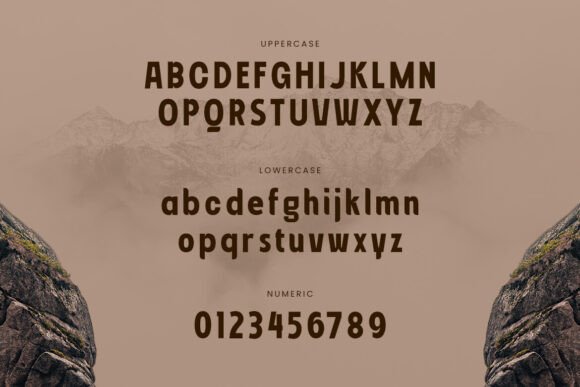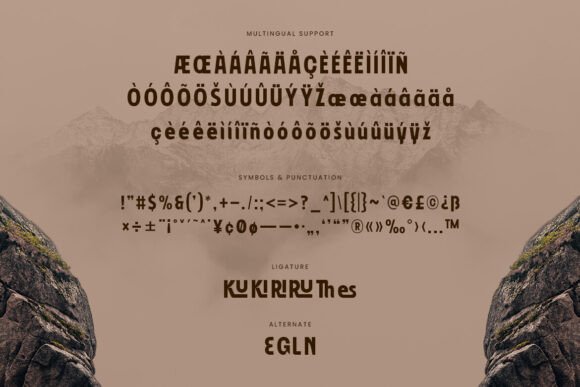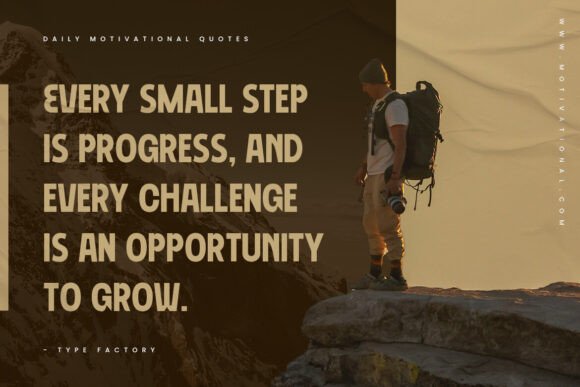
Introduction to Prinles Font
Have you ever stared at a blank canvas, waiting for the perfect idea to strike? For designers, this moment can be a thrilling challenge – the spark that sets a creative project ablaze. As you begin to envision your concept, the right font can make all the difference. Enter the Prinles Font, a game-changing addition to any design arsenal.
With its striking bold style, Prinles Font combines strength and sophistication, making it the ideal choice for impactful designs. Whether you’re crafting a logo, poster, or branding project, this high-quality font is sure to communicate your message with authority. Plus, its clean lines and modern aesthetic ensure versatility across various applications – from print to digital media. Download the Prinles Font for free and unlock a world of creative possibilities with this valuable design resource.
Key Features of Prinles Font
- High-quality design for creative projects with a unique, modern aesthetic.
- Designed with a transparent background, ideal for use on any design resource or creative project.
- Available in a single font size, making it easy to integrate into various design projects.
- Perfect for designers and artists looking for a versatile, high-quality design resource.
Honest Review: Prinles Font
As a designer, I’m always on the lookout for high-quality fonts to enhance my creative projects. Recently, I stumbled upon the Prinles Font, and I must say it’s a great addition to my design resource library.
What works well: ✨ The Prinles Font offers a beautiful, elegant design that’s perfect for various creative projects, from typography-based designs to branding materials. It’s also available for free download, making it an excellent choice for designers on a budget. The font also features a transparent background, which allows for seamless integration with other design elements.
What doesn’t work well: ⚠️ One of the limitations of the Prinles Font is its limited character set. While it’s still a great choice for many design projects, it may not be suitable for complex texts or multi-language designs.
Overall impression: I’m thoroughly impressed with the Prinles Font. Its elegant design and high-quality look make it a valuable addition to any designer’s library. While it may have some limitations, its free download and transparent background make it a great choice for many creative projects.
Pros:
- Beautiful, elegant design
- Perfect for various creative projects
Cons:
- Limited character set
Some common use cases for Prinles Font include creating invitations, flyers, and social media graphics. To get the most out of this font, experiment with different font sizes, colors, and styles to create unique and eye-catching designs. You can also use the transparent background feature to create designs with a more subtle look.